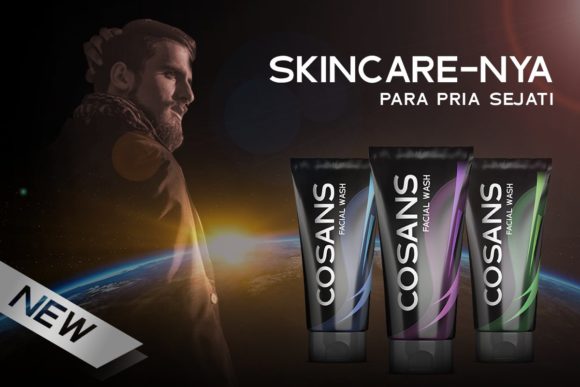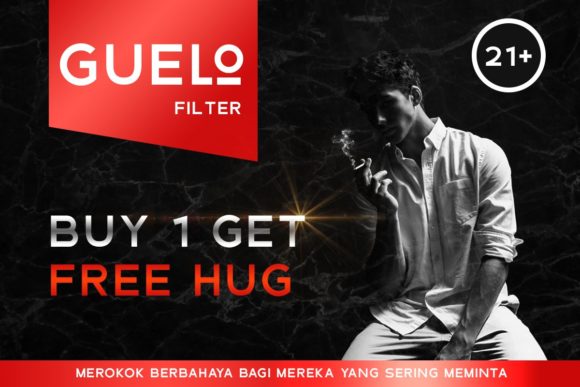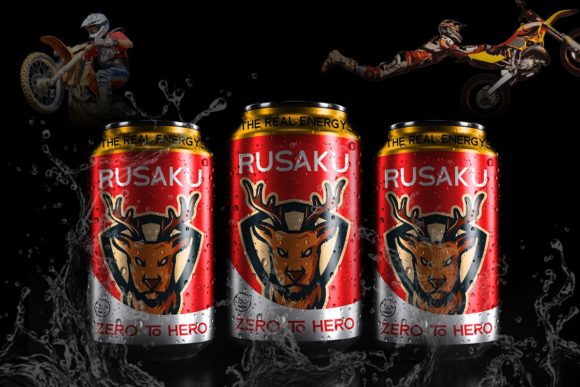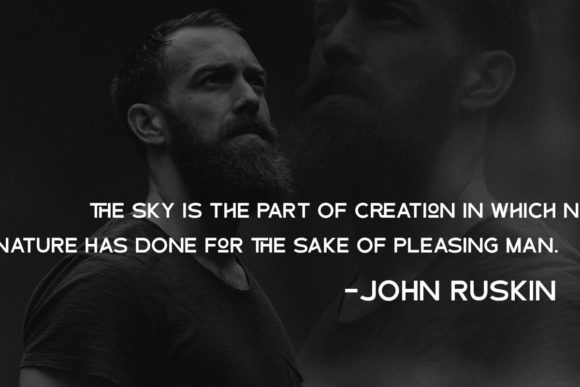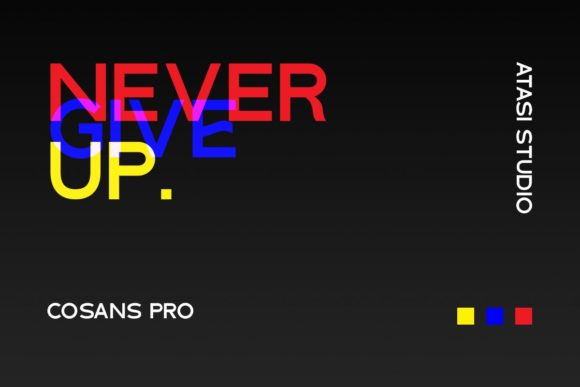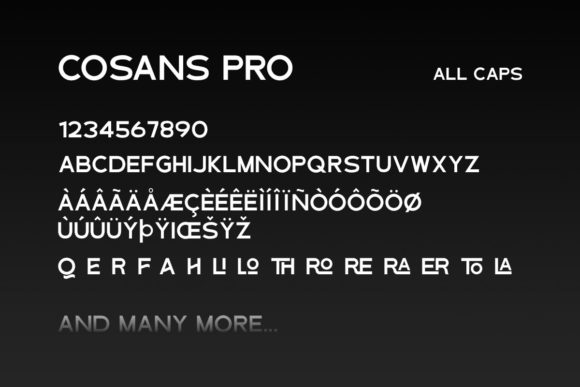
I still remember the frustration of working on a project, hours spent perfecting every detail, only to be held back by one thing: the font. My client wanted something modern, clean, and minimalist, but I just couldn’t seem to find the right fit. That was until I stumbled upon Cosans Pro, a stunning sans serif font that changed the game. In this article, I’ll share my experience with Cosans Pro, its features, and how to make the most of it in your designs.
First Impressions: A Love Affair with Cosans Pro
As soon as I opened Cosans Pro, I knew I was in love. The clean lines, the elegant curves, and the overall minimalist approach to design had me hooked. Here are a few things that make Cosans Pro stand out:
- ✨ Clean and modern aesthetic: Cosans Pro has a sleek, contemporary look that’s perfect for designs that require a touch of sophistication.
- ✅ Highly legible: The font is incredibly easy to read, even at small sizes, making it ideal for body text and captions.
- 💡 Versatile: Cosans Pro comes in multiple weights, allowing you to use it for both headings and body text.
The Not-So-Perfect Font: A Few Quirks
No font is perfect, and Cosans Pro is no exception. Here are a few things to keep in mind:
- 🤔 Limited character set: While Cosans Pro has a wide range of characters, it may not have every special character or glyph you need.
- ⚠️ Not ideal for long-form text: While the font is legible, it’s not designed for long-form text. It works best as a display font or for short paragraphs.
The Story Behind Cosans Pro: Designer Inspiration
The story behind Cosans Pro is one of passion and dedication. The designer, inspired by modernist architecture and minimalist art, set out to create a font that embodied the principles of clean design. Through countless hours of refinement and iteration, Cosans Pro was born – a font that’s both beautiful and functional.
| Font Name | Cosans Pro Font |
| Author | atasistudio |
| What is Cosans Pro? | Cosans Pro is a modern sans serif font designed with a clean and minimalist approach. |